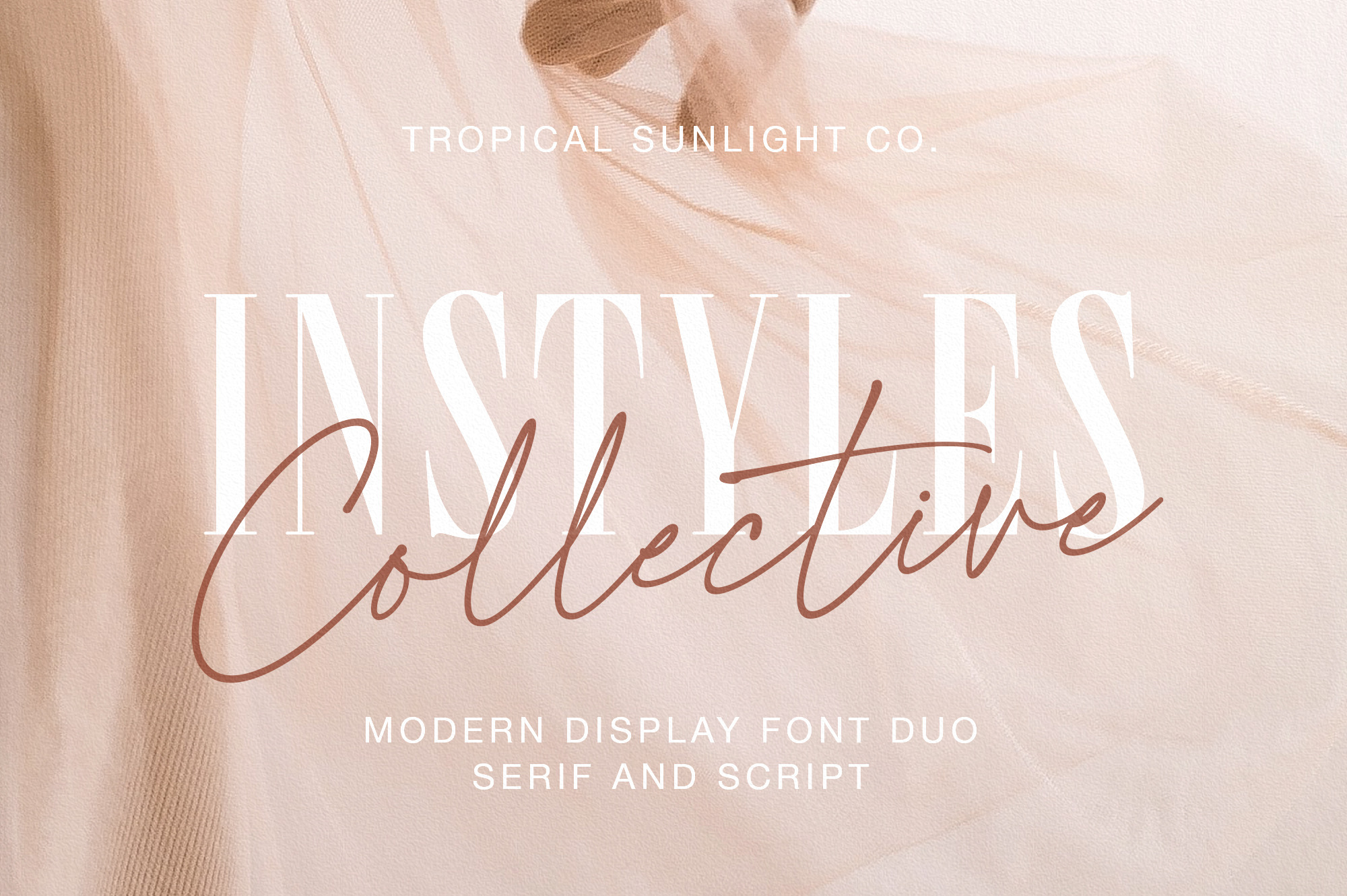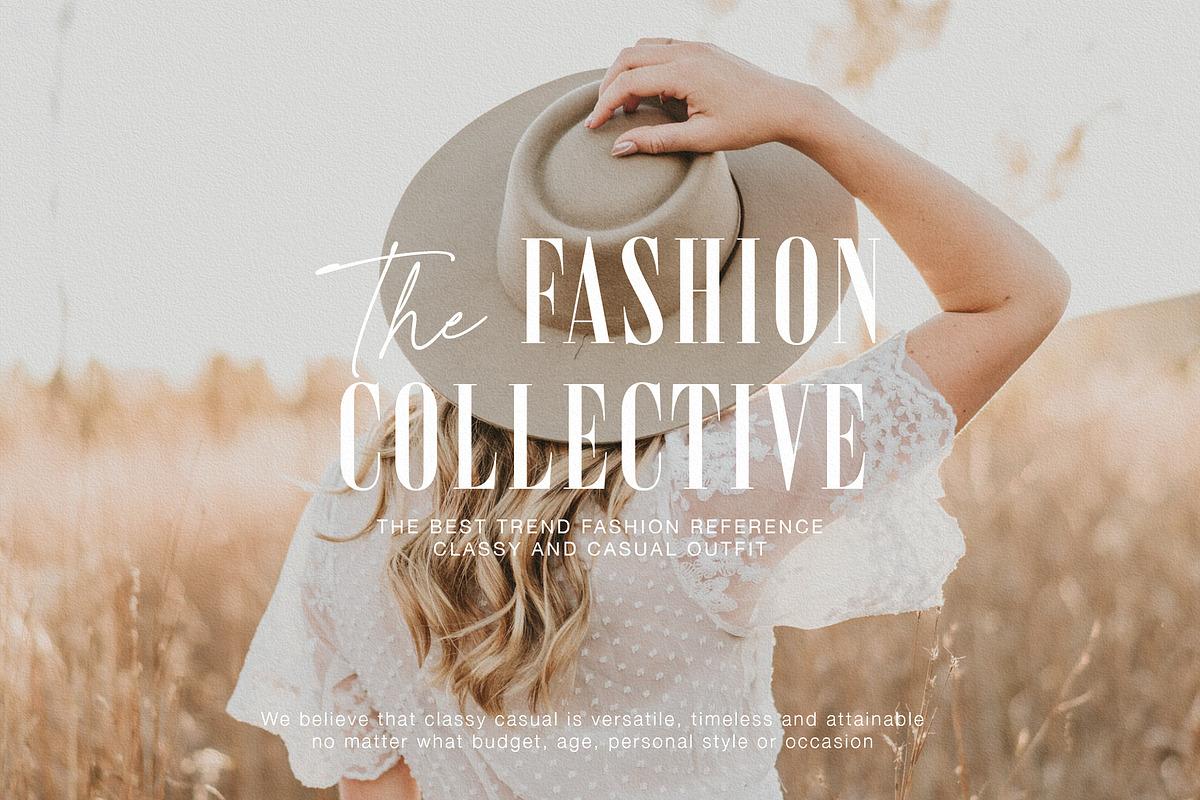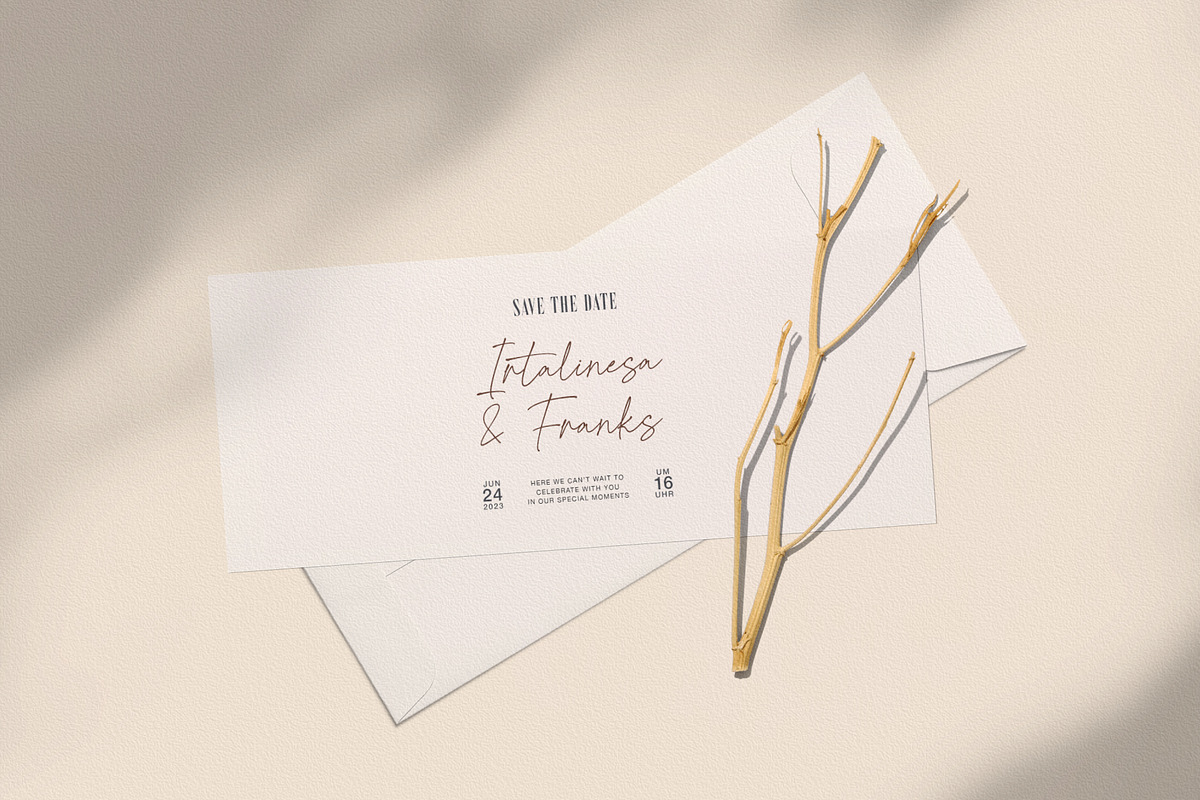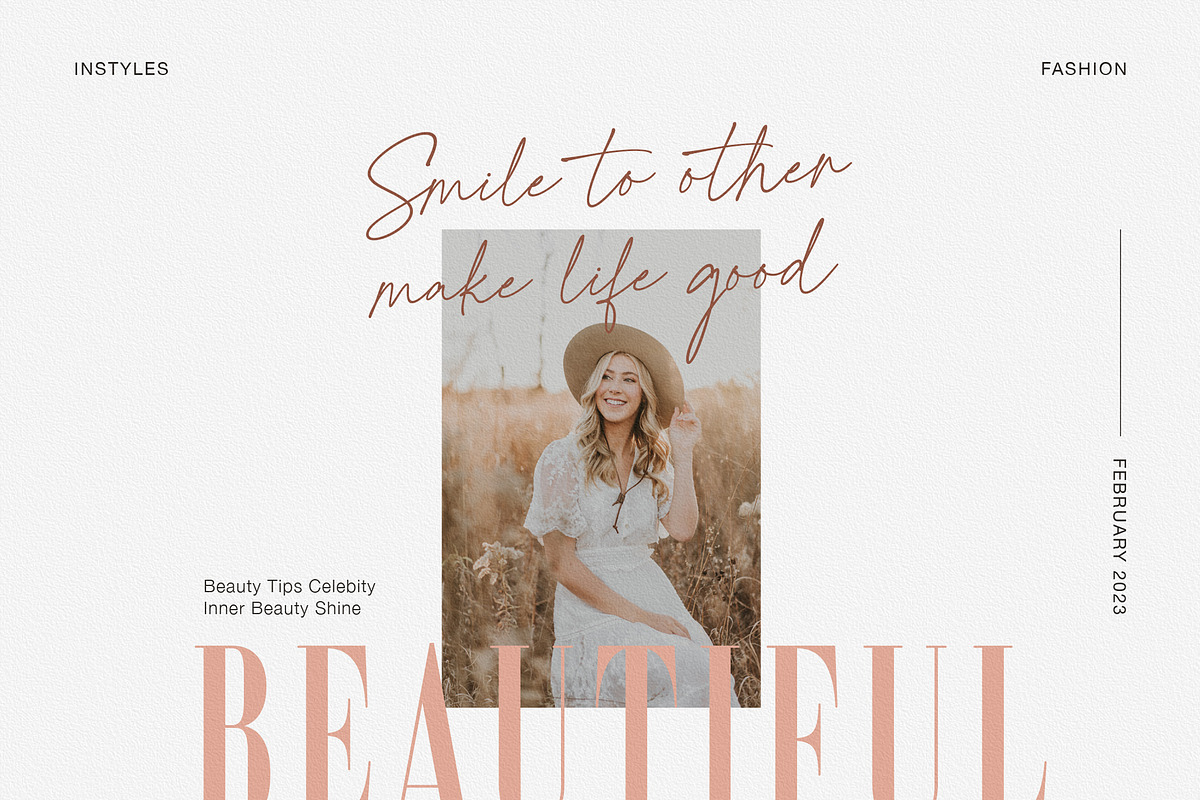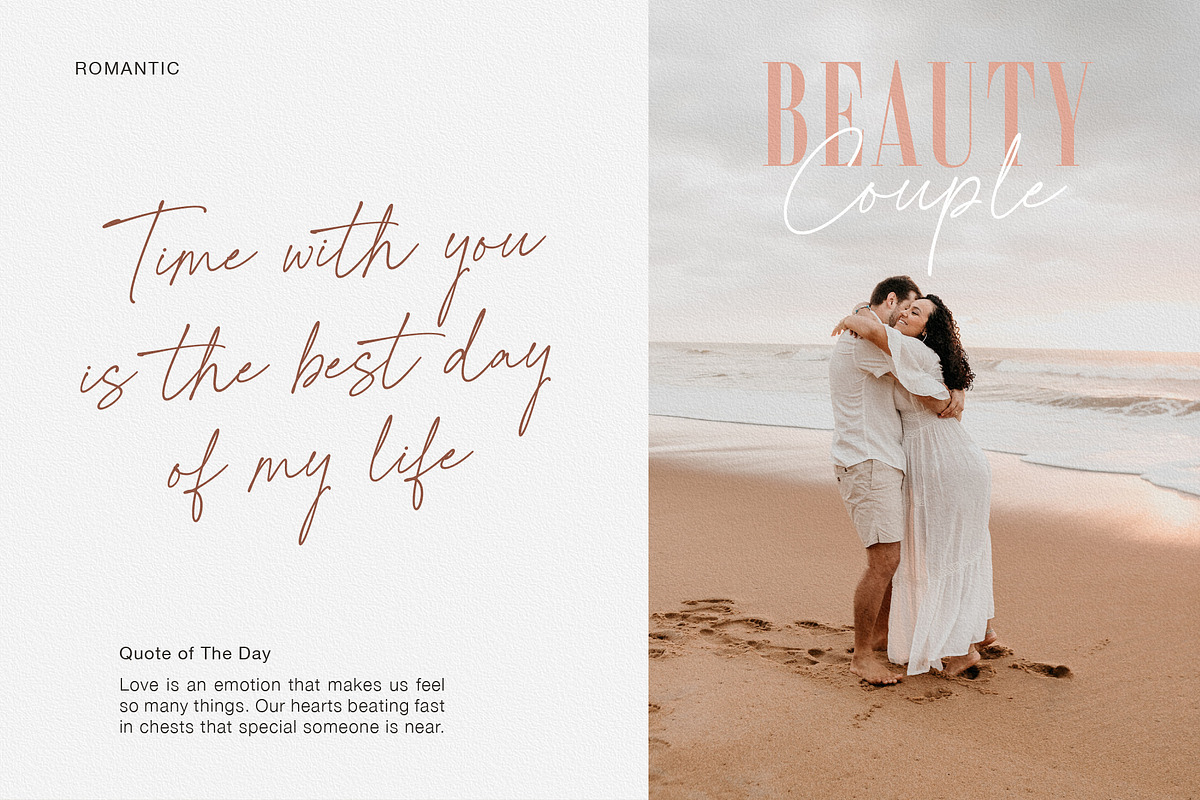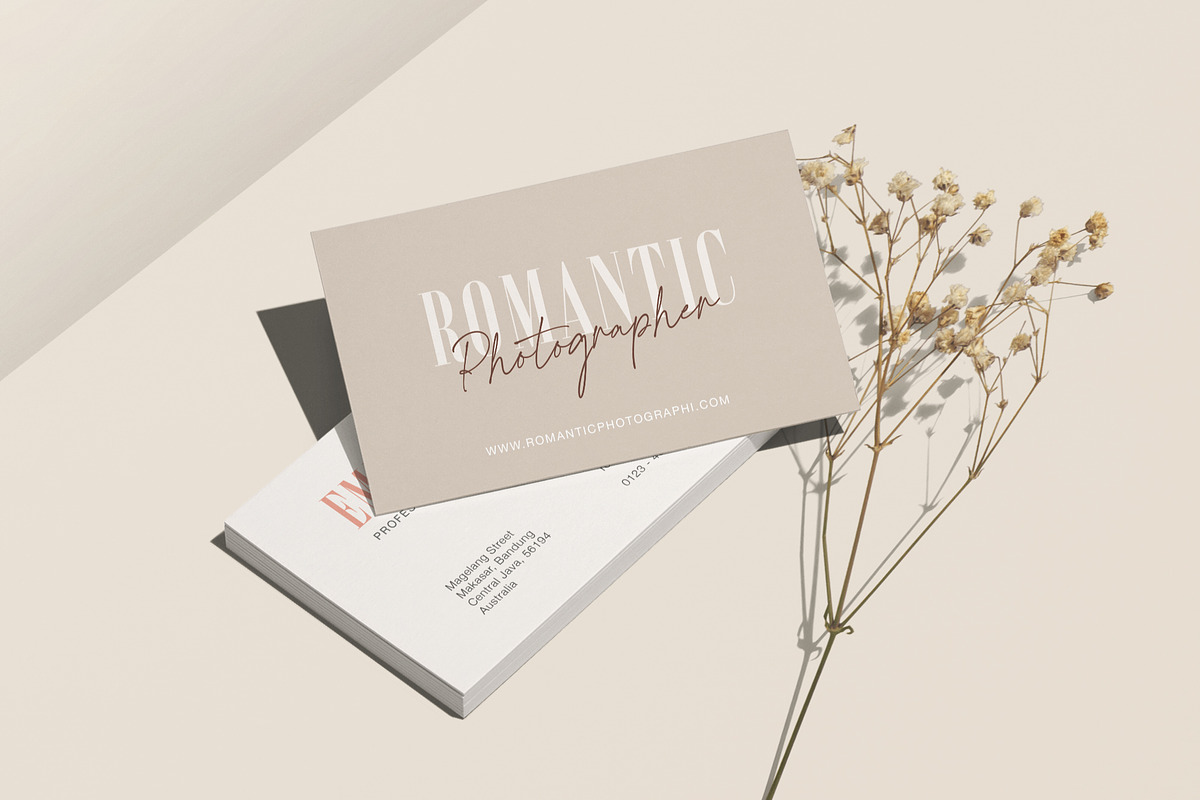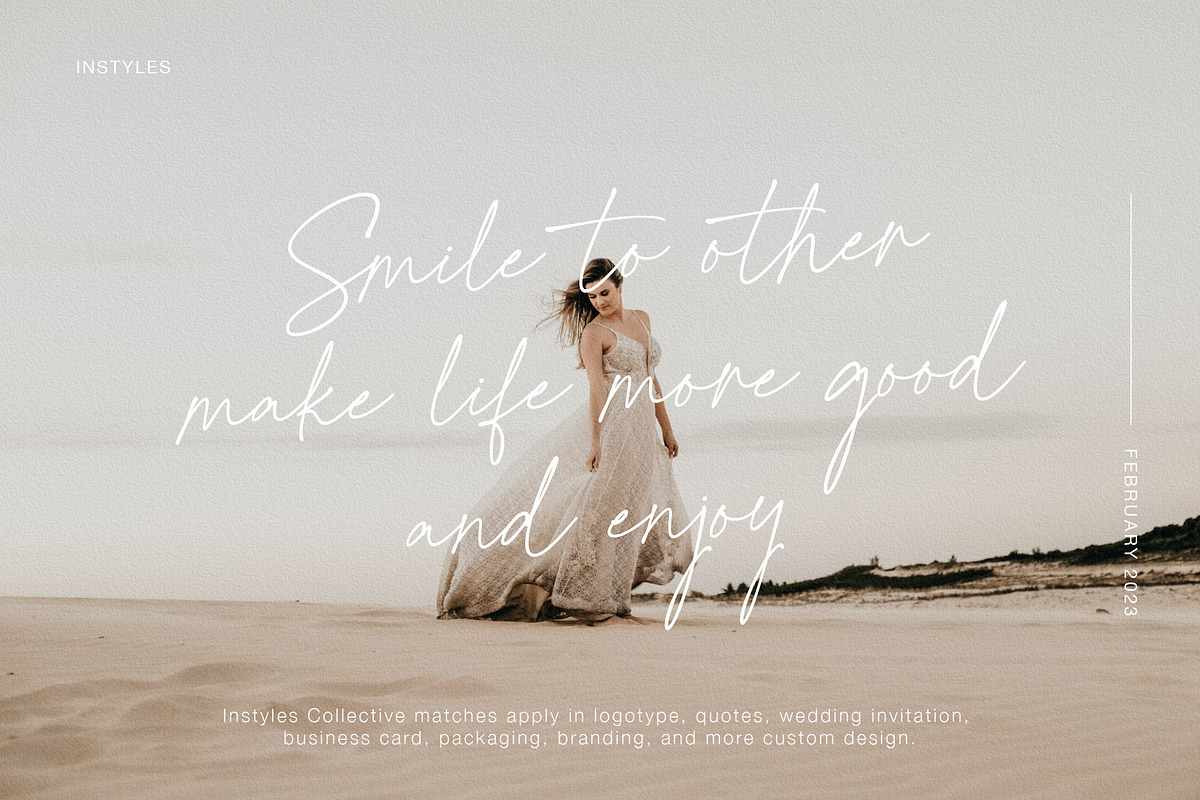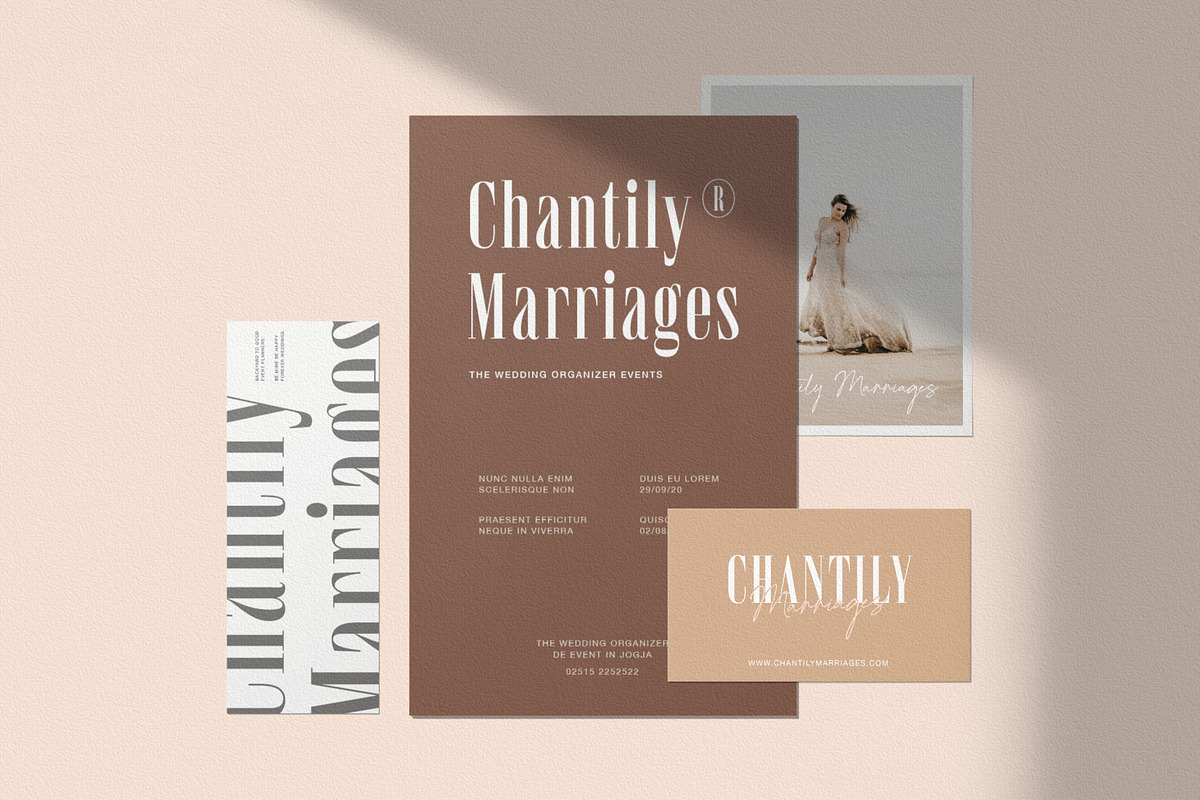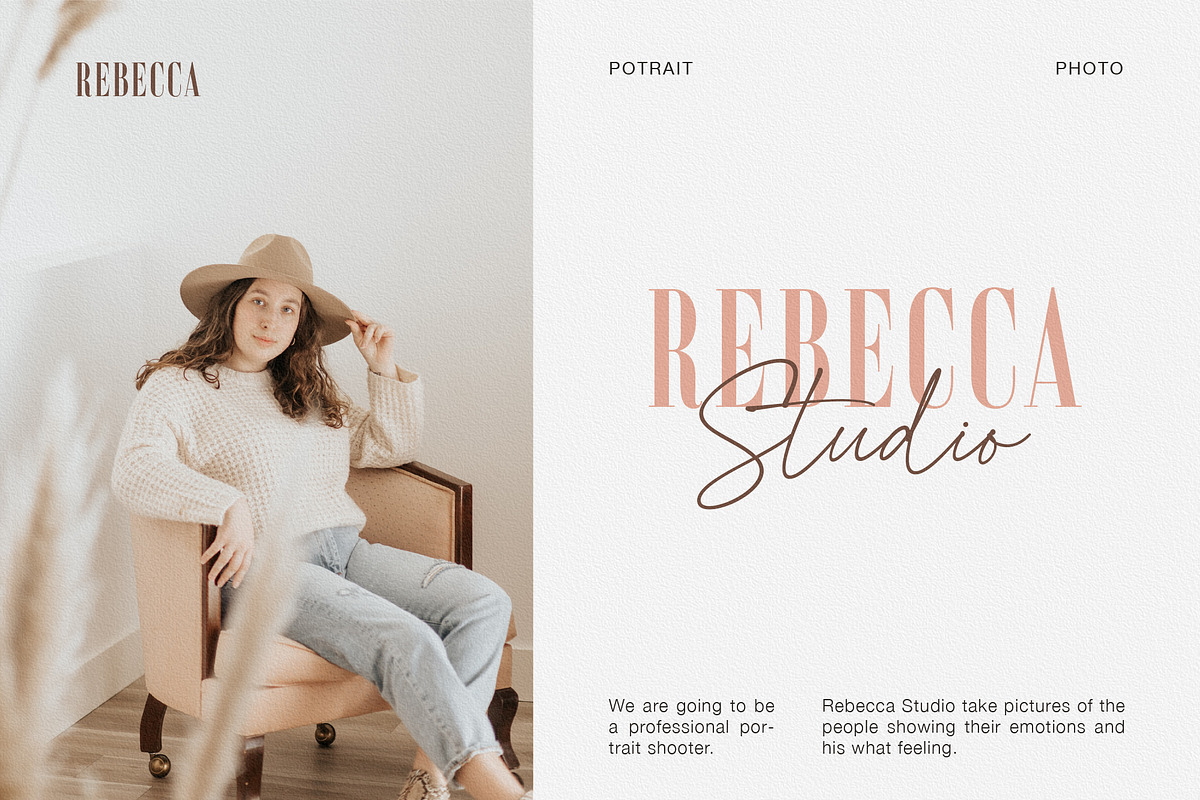
Instyles Collective - Modern Font
The font is called "Instyles Collective", it is font duo with fashionable themes. The font comes with two pairing typefaces (script and serif). The Instyles Collective matches apply in some designs such as the logotype, quotes, wedding invitation, business card, packaging, branding, and more custom design.